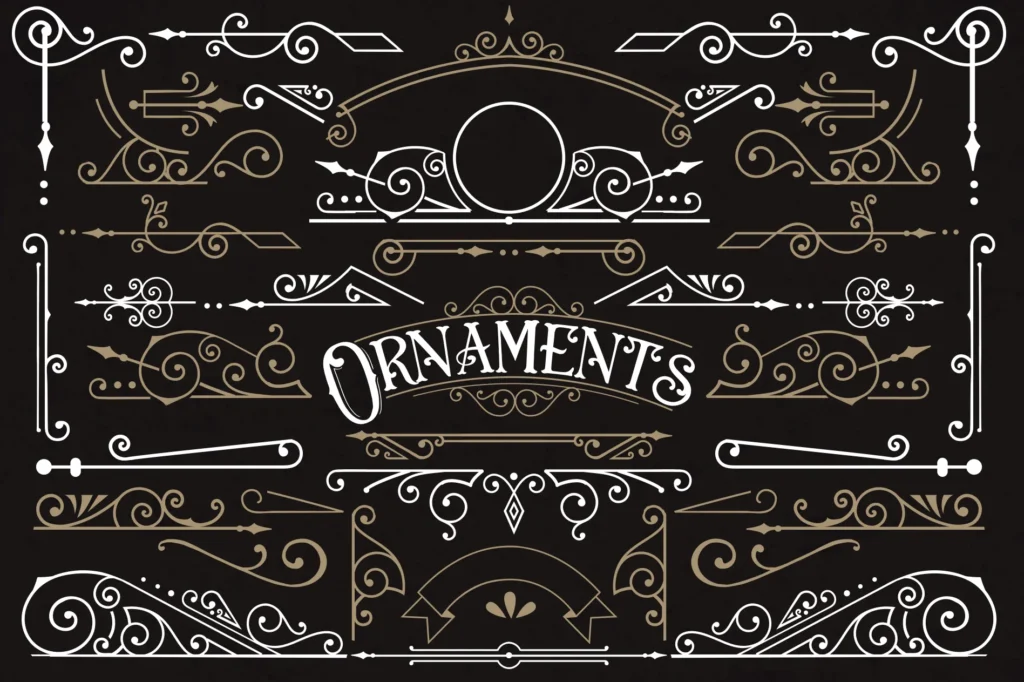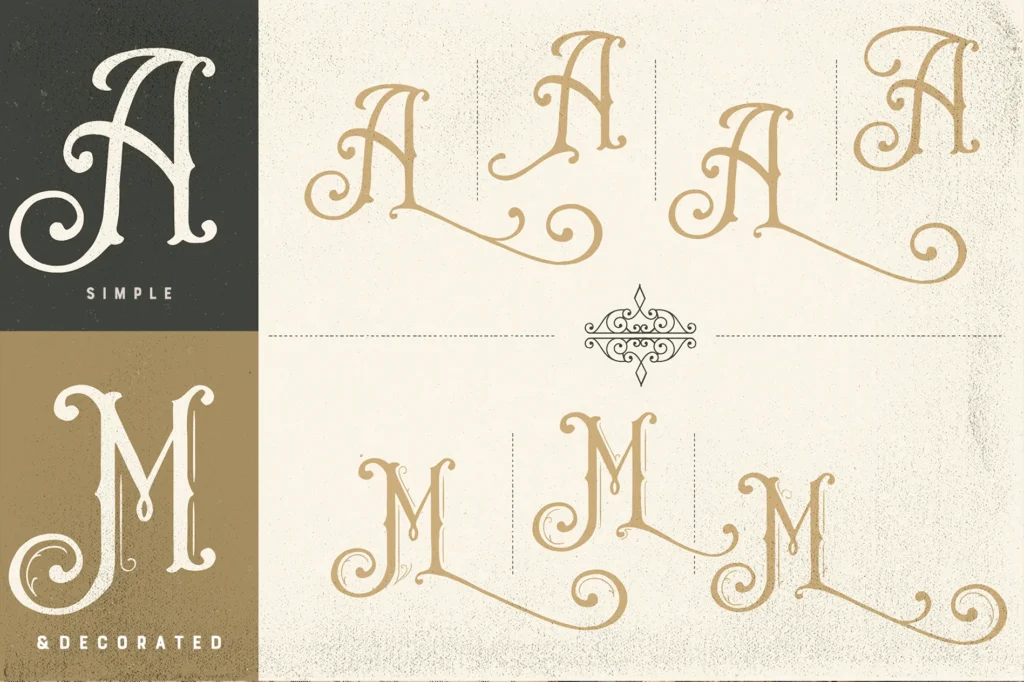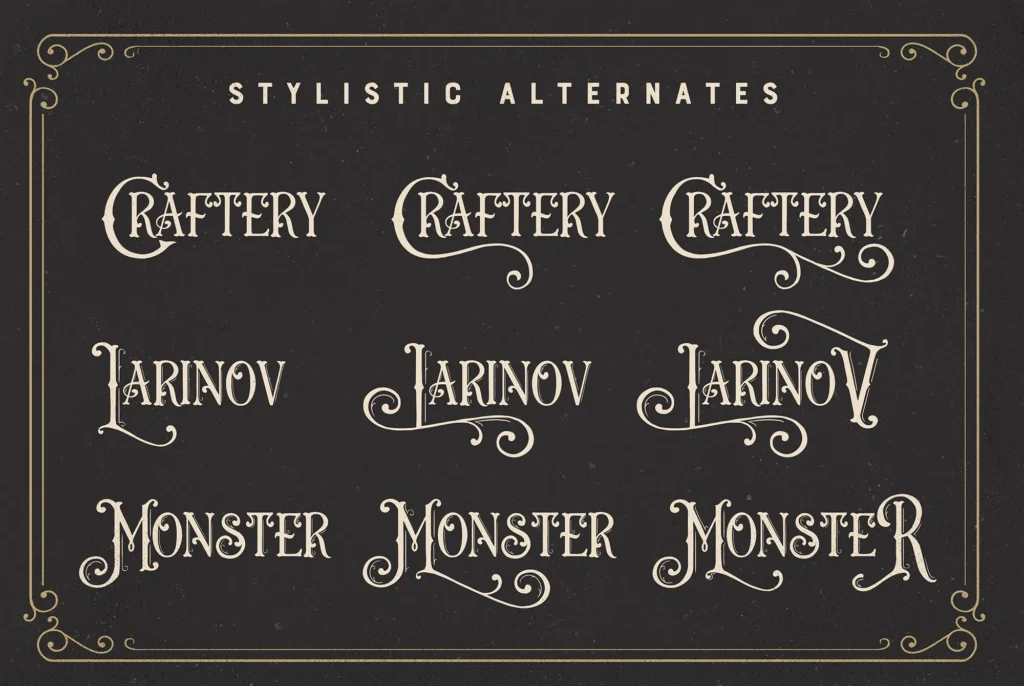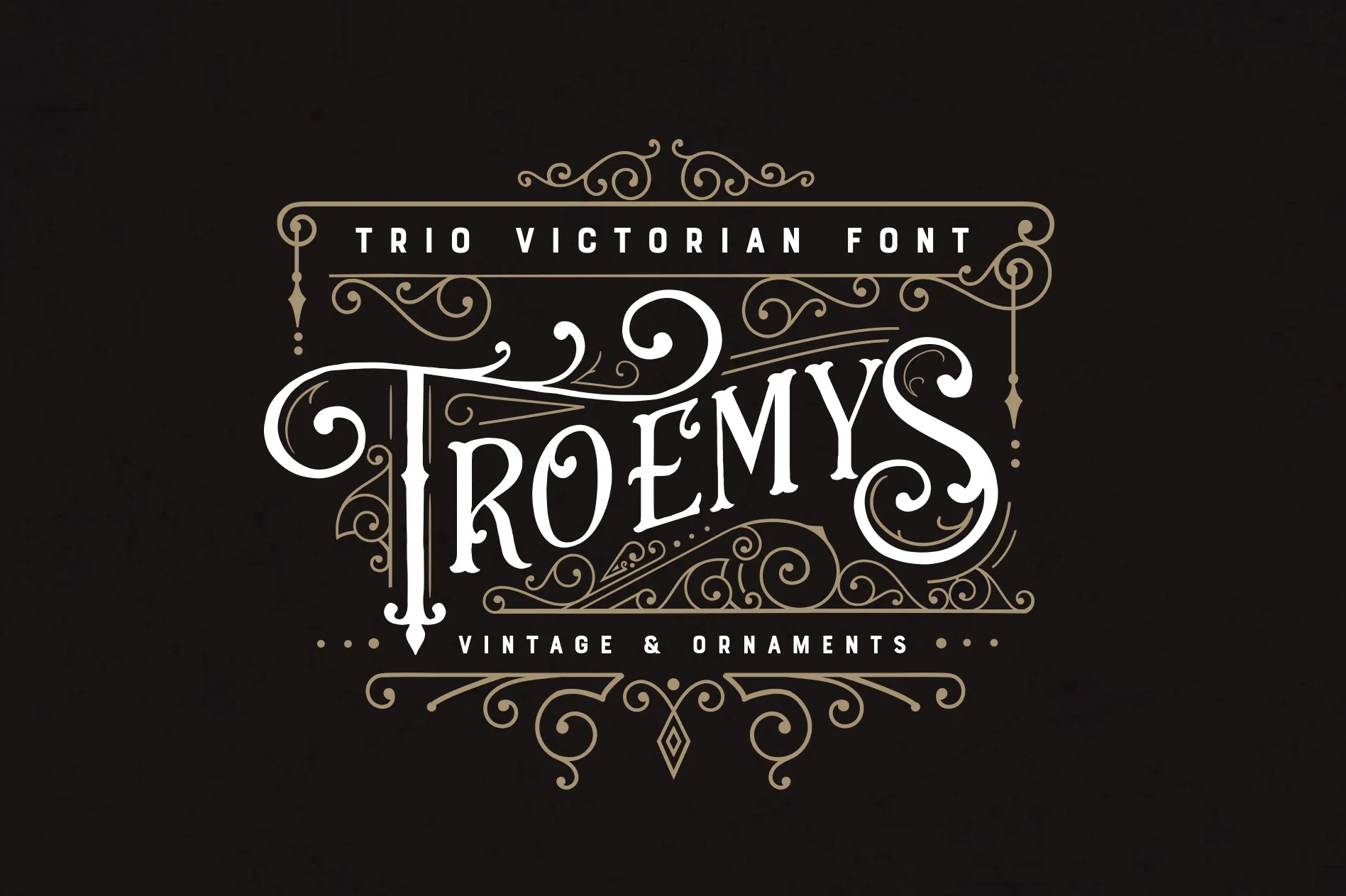
Troemys Trio Font is a triplet textual style with a rare, Victorian feel with bunches of enhancing components.
To get to the Trimmings in the TTF and OTF textual styles, you can just sort Capitals, Lowercase and numerals.
Troemys Trio Font is completely PUA encoded, so you can without much of a stretch access every one of the elective twists and swashes in any application.